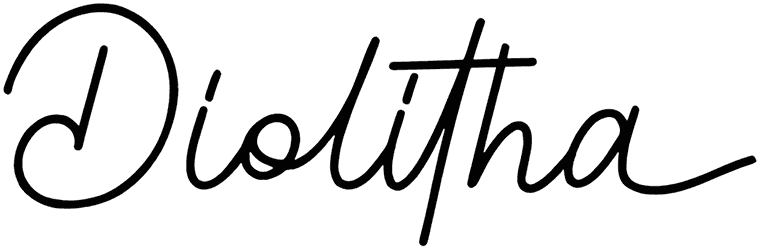
Diolitha Font
We can’t consider a better typeface than a minimalist script font such as Diolitha, which carries a sense of personalization, softness, delicacy, precision, and professionalism.
Above all them, it can add a handwritten touch to posters, business cards, gift cards, branding, logos, magazines, and any other kind of creative design that require a personalized look. Considering all its advantages, the lack of numbers is a negligible matter.